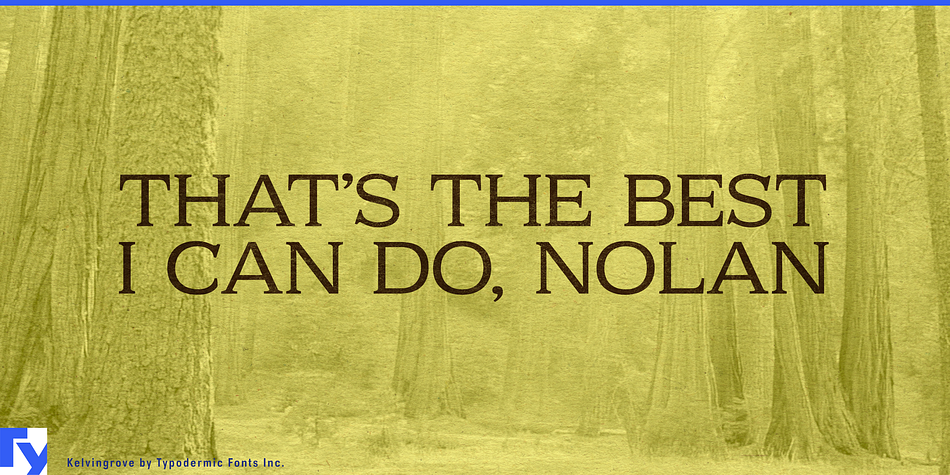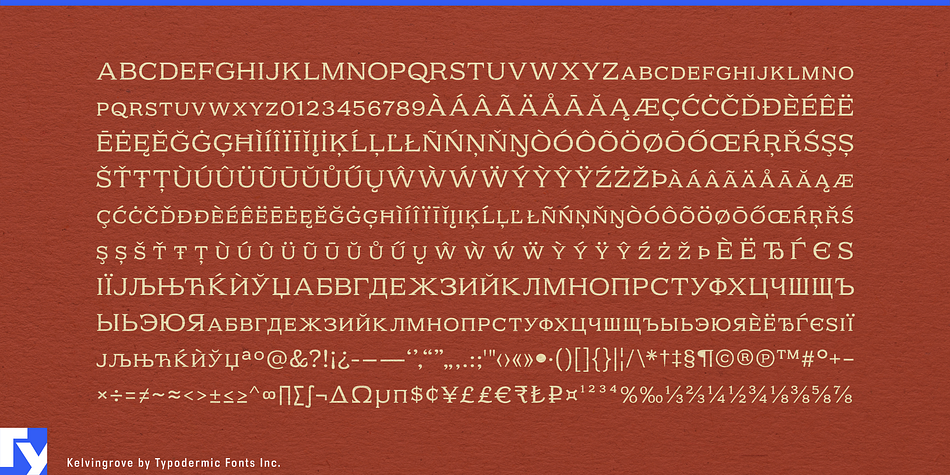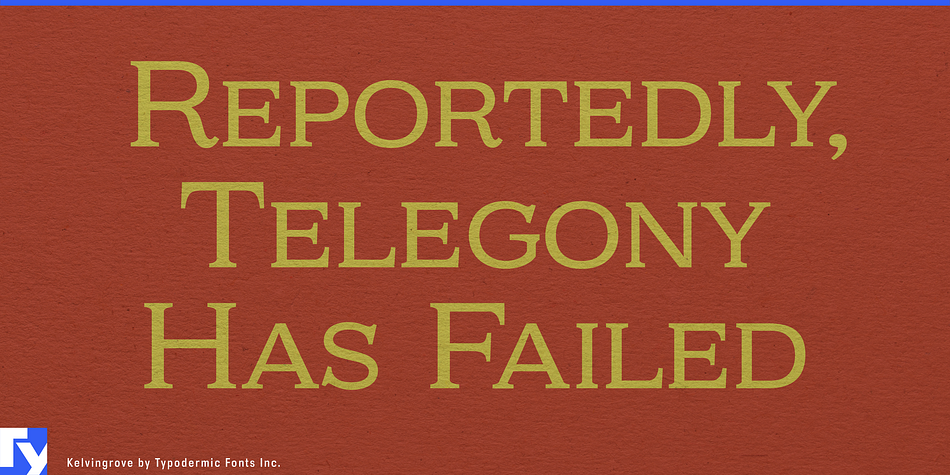
Kelvingrove is a display serif font published by Typodermic Fonts Inc.
Kelvingrove is an attractive new small-cap Copperplate with alternate swash K, Q and R. A small ampersand is also included. The numerals are perfectly balanced to work with either caps or small caps.
| Foundry | Typodermic Fonts Inc. |
| Style | Display Serif |